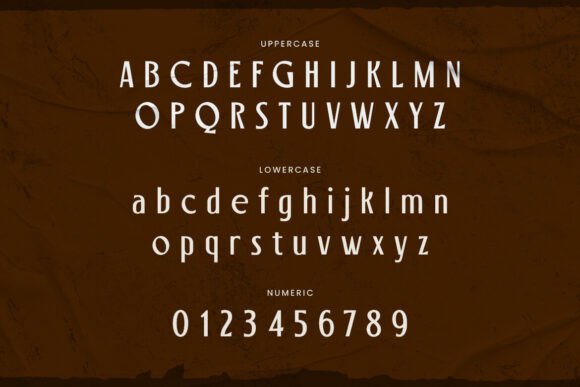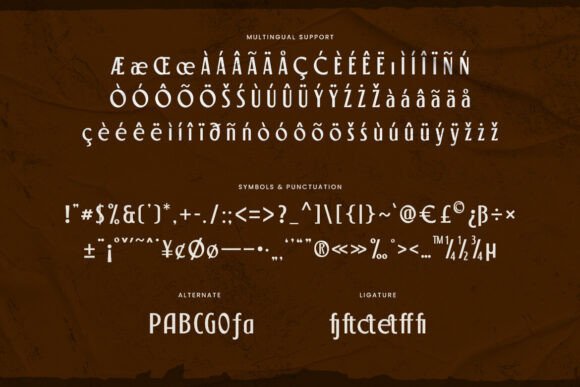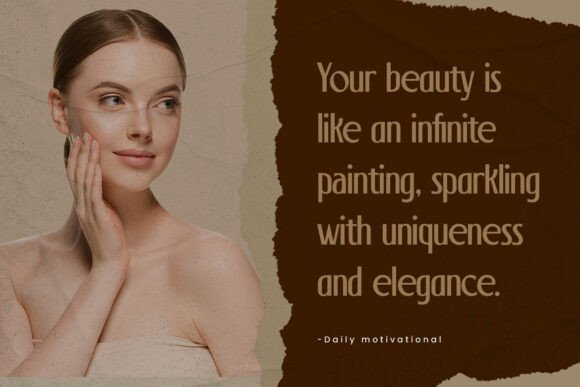
Introduction to Protego Font
Protego is a distinguished sans display font that harmoniously fuses modern aesthetics with an exclusive edge.
With its pronounced, neat lines and geometrical forms, it is ideal for crafting attention-commanding headlines, distinguished branding, captivating posters, and cutting-edge digital designs Protego’s unique persona injects a novel and forward-thinking element into any creative venture, ensuring adaptability across both print and online platforms.
Key Features of Protego Font